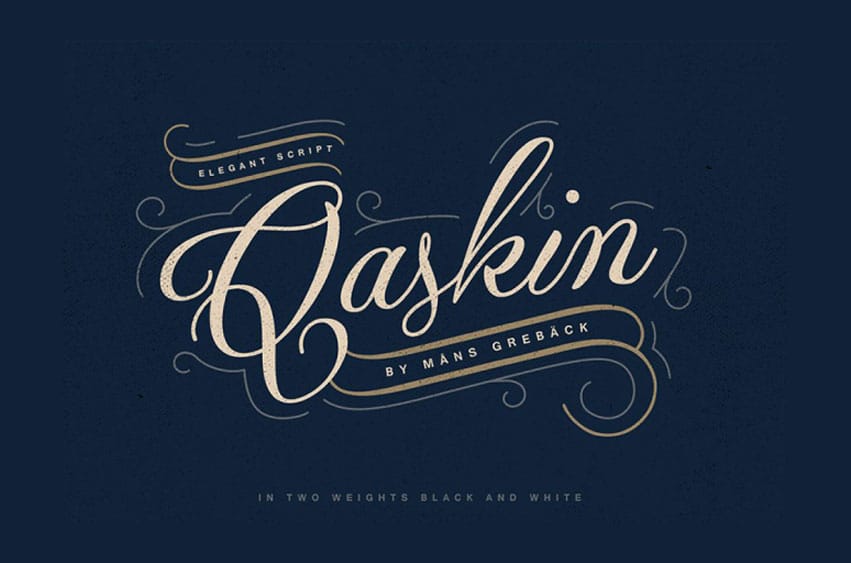
Qaskin Font is High quality script font with multilingual support and a large number of special characters.
Designed by Måns Grebäck, this hand-crafted typeface works great in logotypes and for titles and slogans.